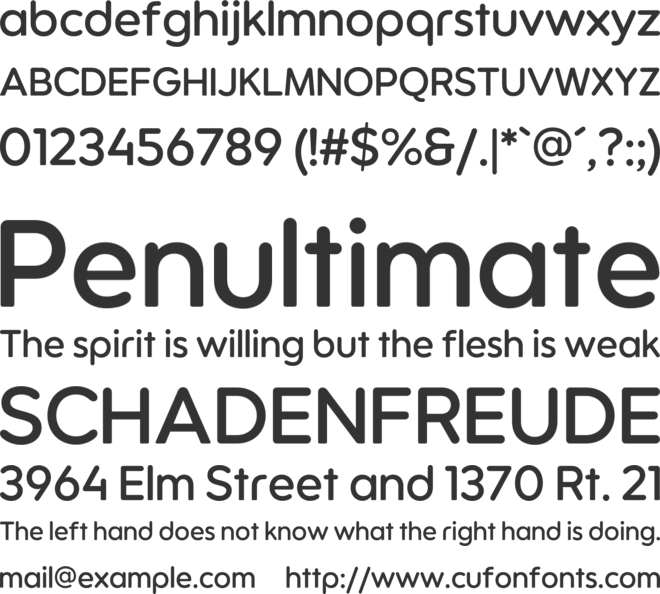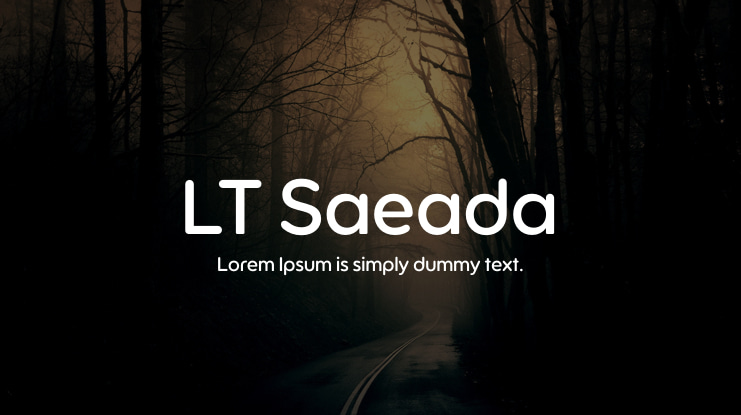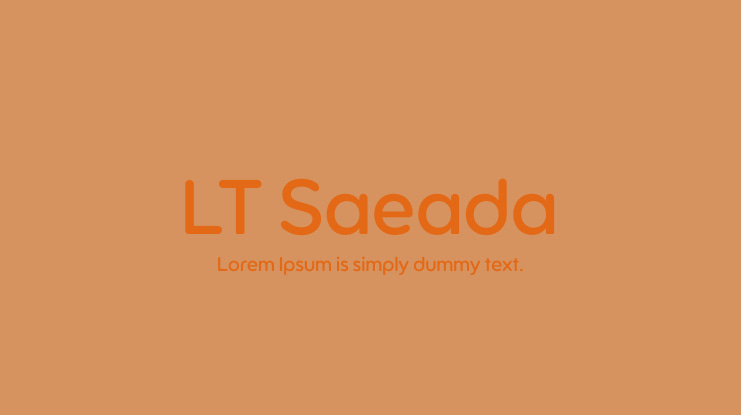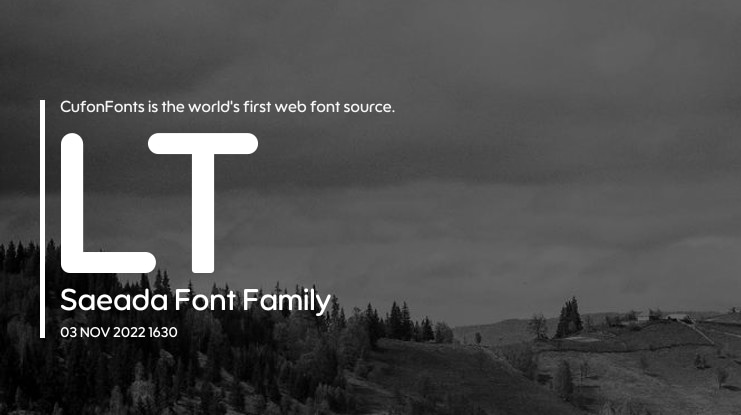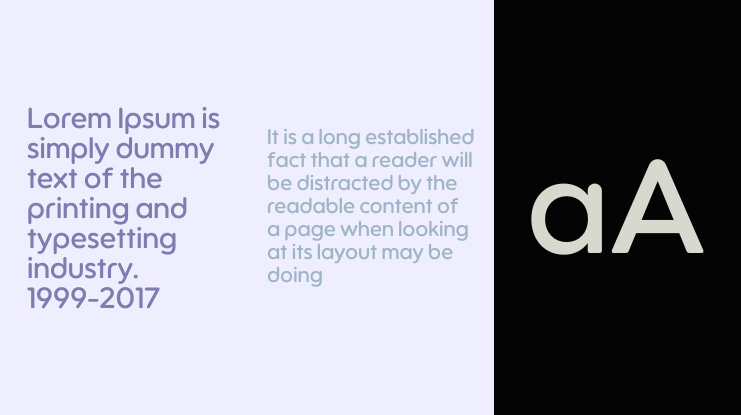
LT Saeada Font Family
Hello, my name is Saeada, which means "happiness" in Arabic. The design consists of a round top and a square bottom. If you have any questions, feel free to reach out to me at .